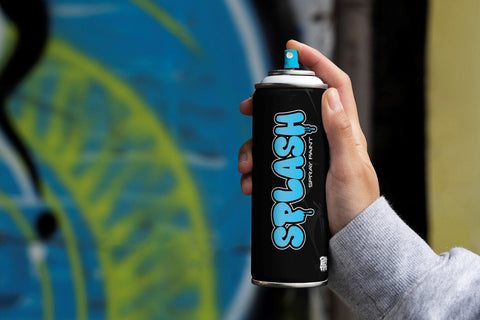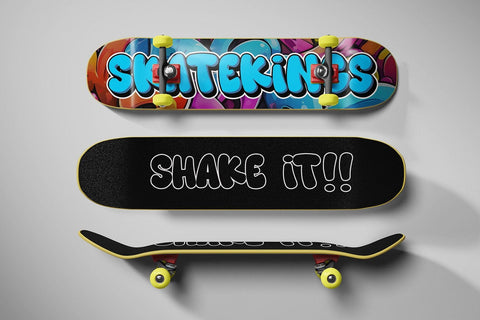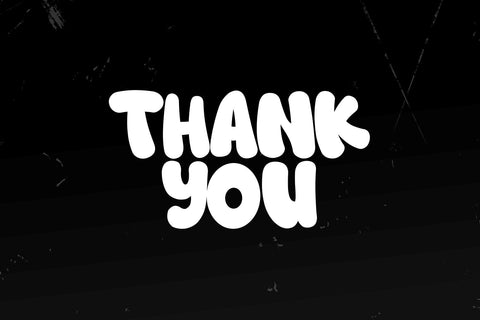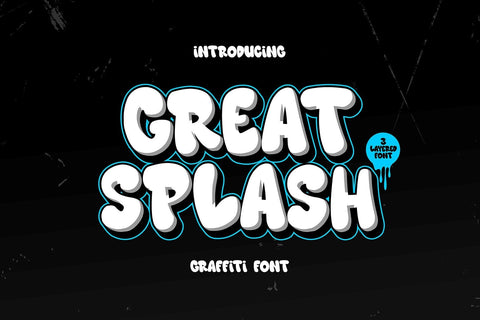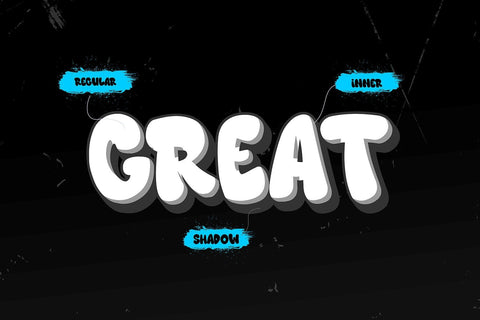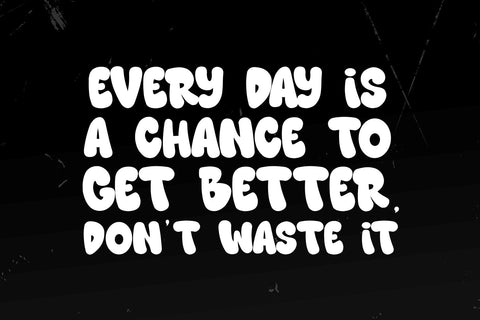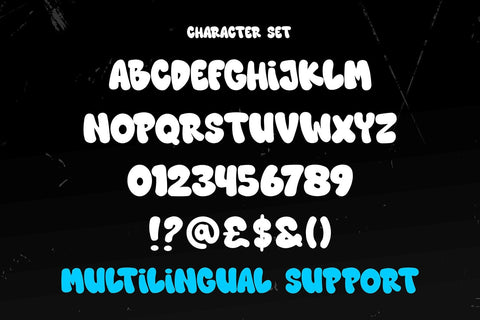
Great Splash - 3d Layered Graffiti Font
Great Splash is a bold, electrifying 3-layered graffiti font that bursts with urban energy. Perfectly capturing the raw essence of street art, this font transforms your designs into eye-catching masterpieces full of character and attitude.
🎨 Three Distinct Layers: The layered design offers ultimate flexibility, allowing you to mix and match styles to create vibrant, multi-dimensional effects that make your text pop off the canvas.
🔥 Authentic Graffiti Vibes: With its dynamic strokes and edgy details, Great Splash embodies the spirit of urban artistry, making it ideal for posters, murals, album covers, and more.
🖌️ Bold and Versatile: Whether you’re looking for a bold headline or an artistic logo, this font adapts to your creative vision, ensuring your message stands out in any setting.
Unleash the power of street art with Great Splash, and give your designs the attitude and impact they deserve.